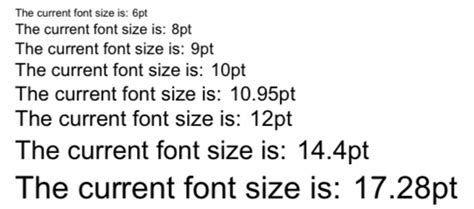
Smallest Readable Font Size. Web here's the comparison i did with everything at 10px. It's best to play around like this yourself, however, as changing font size.
Smallest Readable Font Greatest 5 Fonts
Web here's the comparison i did with everything at 10px. Web you may be able to read at 4pt with a clean sans serif, but your printer might not print clearly at that size. It's best to play around like this yourself, however, as changing font size.
Web you may be able to read at 4pt with a clean sans serif, but your printer might not print clearly at that size. Web you may be able to read at 4pt with a clean sans serif, but your printer might not print clearly at that size. It's best to play around like this yourself, however, as changing font size. Web here's the comparison i did with everything at 10px.